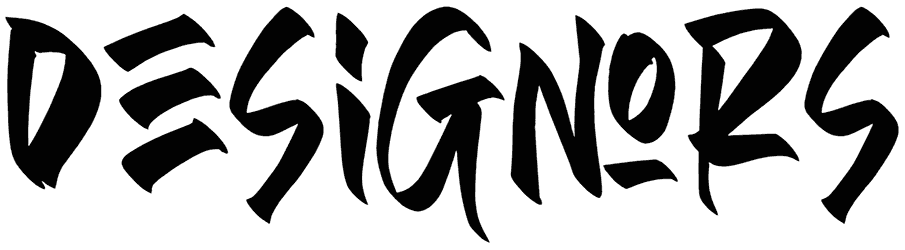
Designors Font
Designors is a cute streetwear font whose oblique and crocked style makes it really ideal for creating any kind of graphic content such as greeting cards, invitations, gift cards, and menus. Although it doesn’t support l…
Designors is a cute streetwear font whose oblique and crocked style makes it really ideal for creating any kind of graphic content such as greeting cards, invitations, gift cards, and menus. Although it doesn’t support lowercase letters and numbers, it carries a sense of fun, playfulness, personalization, and drama, so it is better not to pay attention to the deficiency of this brush typewriter.